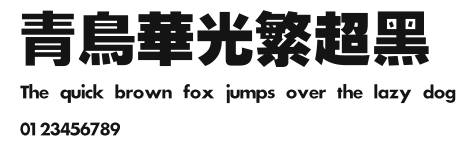
青鸟华光繁超黑 Preview
• Font Name: 青鸟华光繁超黑
• Font ID: 青鸟华光繁超黑
• Full Font Name: 青鸟华光繁超黑
About 青鸟华光繁超黑.TTF
青鸟华光繁超黑.TTF is a modern, elegant sans-serif font designed for ultimate readability and visual harmony. Perfect for branding, headlines, web design, and print materials.